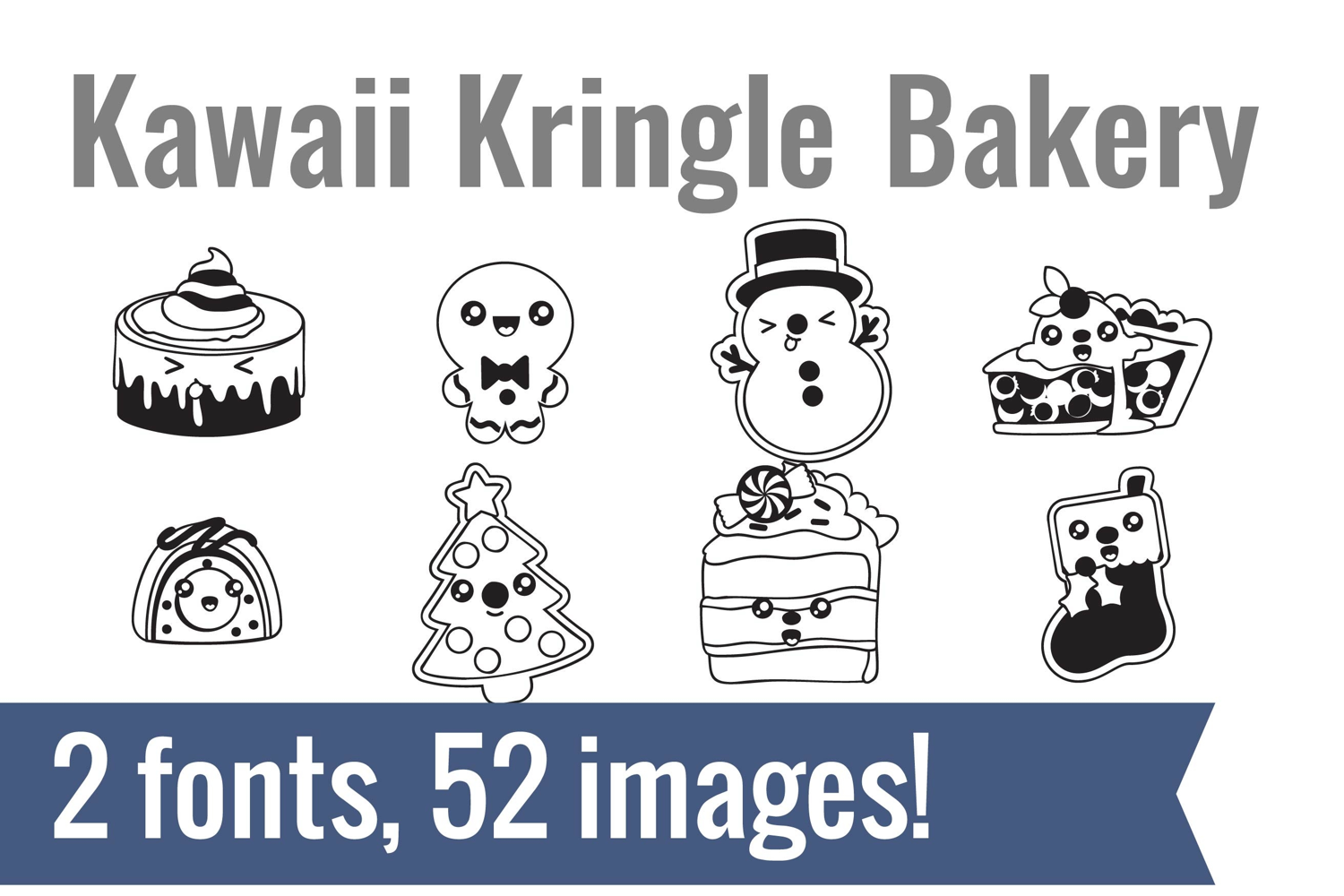
Kawaii Kringle Dingbats
Unlock endless creativity with two perfectly coordinated fonts! There are two dingbat fonts in this bundle, both featuring kawaii-style holiday bakery items and cupcakes.